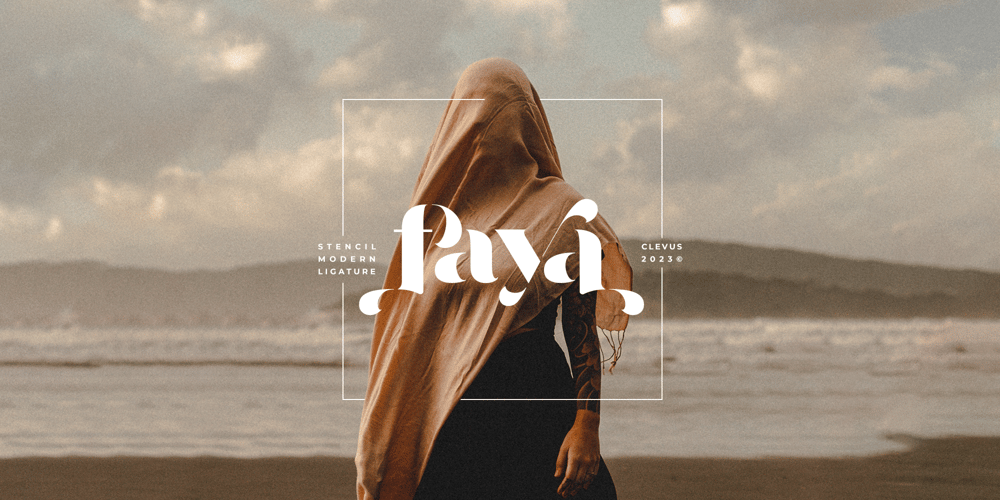
Faya
Faya font
Faya Font Family was designed by Alfinu Zafir and published by Clevus. Faya contains 2 styles and family package options. Proudly present Faya stencil modern ligature.Faya is a font designed with a modern stencil style that blends classic elements with elegant contemporary touches. Featuring ligatures that offer design flexibility, Faya is suitable for various graphic design needs, including posters, banners, logos, and more.Don’t forget to use all caps too in your mixing and matching – it adds contrast and impact to your type design.Design tips! : Tighten your letterspacing for larger titles to create a range of looks.Crafted with meticulous attention to detail, Faya’s letterforms are bold, sharp, and geometrically-shaped, catching the eye with their visually appealing design. The font boasts high clarity and legibility, offering a range of different letter variations such as elegant uppercase and lowercase letters. With its clean yet stylish appearance, Faya is perfect for modern and minimalist design applications.Font Features :Lettres, numbers, symbols, and punctuation, alternates and ligatures No special software required they may be used even in canva, any basic program /website apps that allows standard fonts That’s it folks! Multilingual SupportLanguage Support: Danish, English, Estonian, Filipino, Finnish, French, Friulian, Galician, German, Gusii, Indonesian, Irish, Italian, Luxembourgish, Norwegian Bokmål, Norwegian Nynorsk, Nyankole, Oromo, Portuguese, Romansh, Rombo, Spanish, Swedish, Swiss-German, Uzbek (Latin)Follow My Shop For Upcoming Updates Including Additional Glyphs And Language Support. And Please Message Me If You Want Your Language Included or If There Are Any Features or Glyph Requests, Feel Free to Send me A Message.Kindly check over on Instagram! https://www.instagram.com/clevustudio/Have a Good Day !